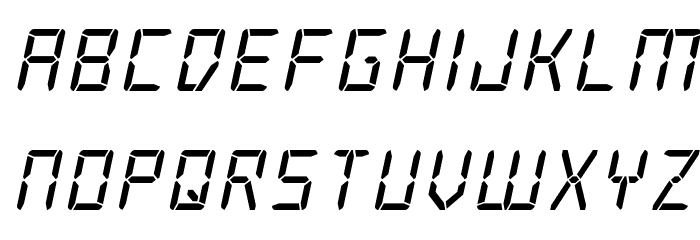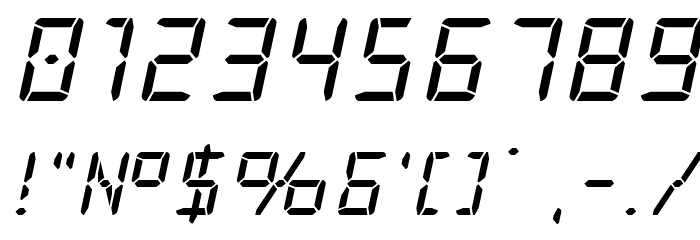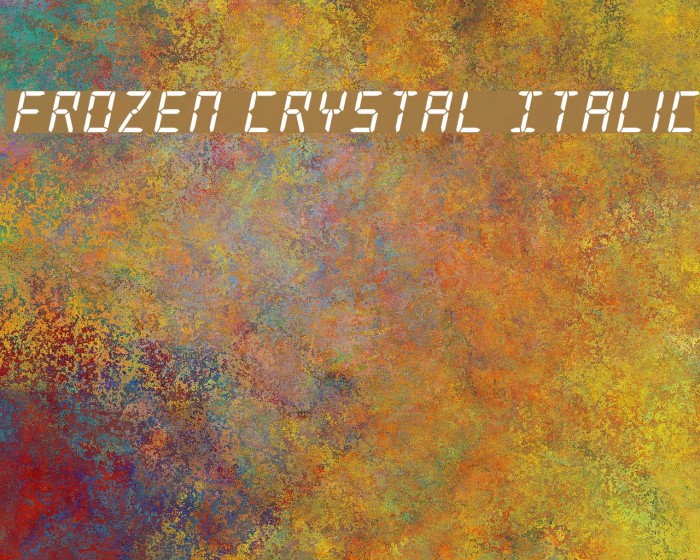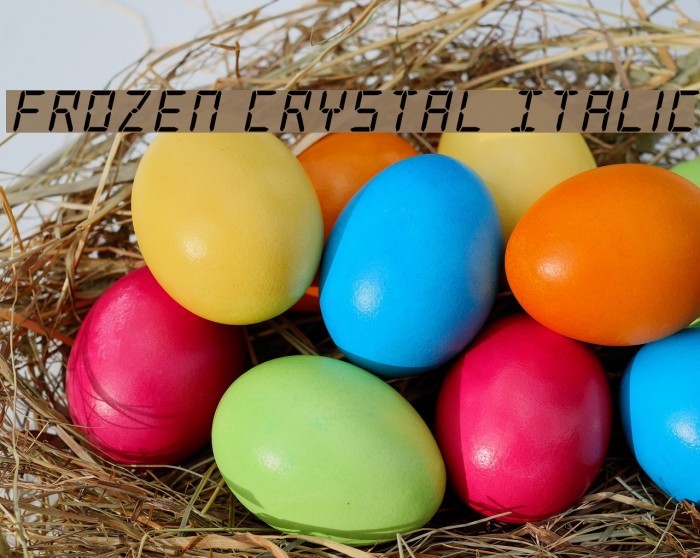
Frozen Crystal Italic Font
This font features a futuristic and digital aesthetic, reminiscent of LED displays or digital clocks. Each character is constructed with angular, geometric shapes that give it a sharp and modern appearance. The italic style adds a dynamic and forward-leaning aspect, enhancing its sense of movement and speed. The characters are evenly spaced, maintaining a consistent rhythm across the text. The font's unique design makes it stand out, ideal for projects that require a tech-savvy or contemporary look. Its clear and legible structure ensures readability while maintaining a distinct style.
A futuristic, digital-style italic font with angular, geometric shapes.
- Proposed Projects: Ideal for tech-related branding, digital interfaces, video game titles, and futuristic-themed posters.
- Use Case: Headlines, Logos, Digital displays